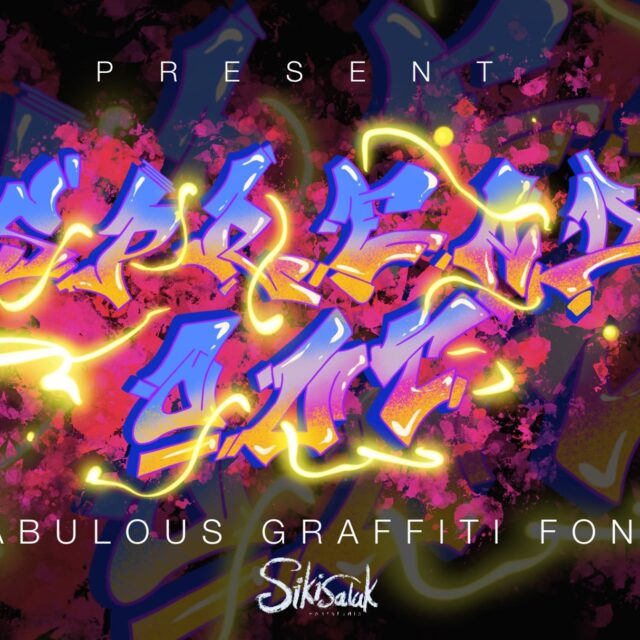
About Spread Out
“Spread Out” is an impressive thick graffiti font. Fonts like this are characterized by bold, wide letterforms that exude a strong and impactful presence. These fonts are commonly used in various design projects where a bold and eye-catching typographic style is desired, especially in graffiti art, posters, or any design requiring a commanding and dynamic look.
With “Spread Out,” you can create designs that emphasize strength and boldness through its thick and impactful letterforms. This font is particularly suitable for projects where you want your text to stand out prominently and make a powerful visual statement.